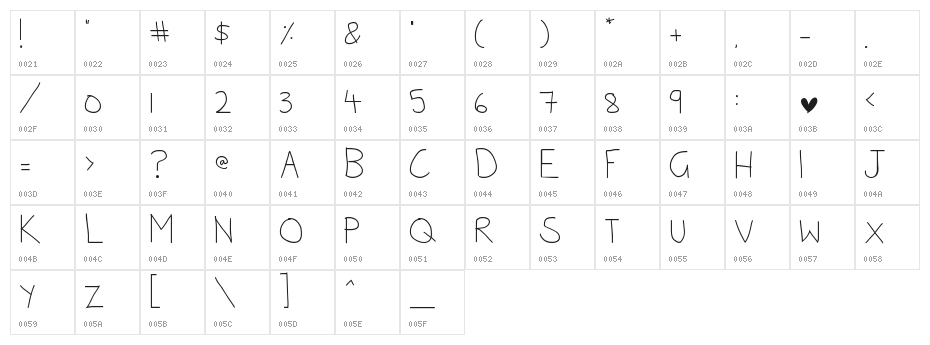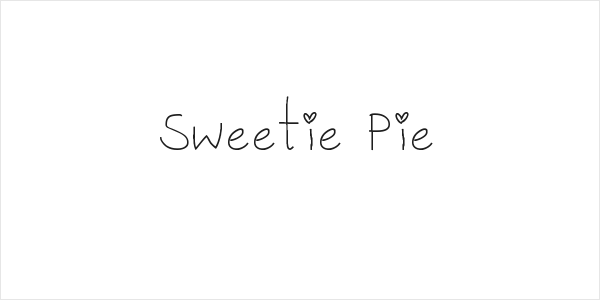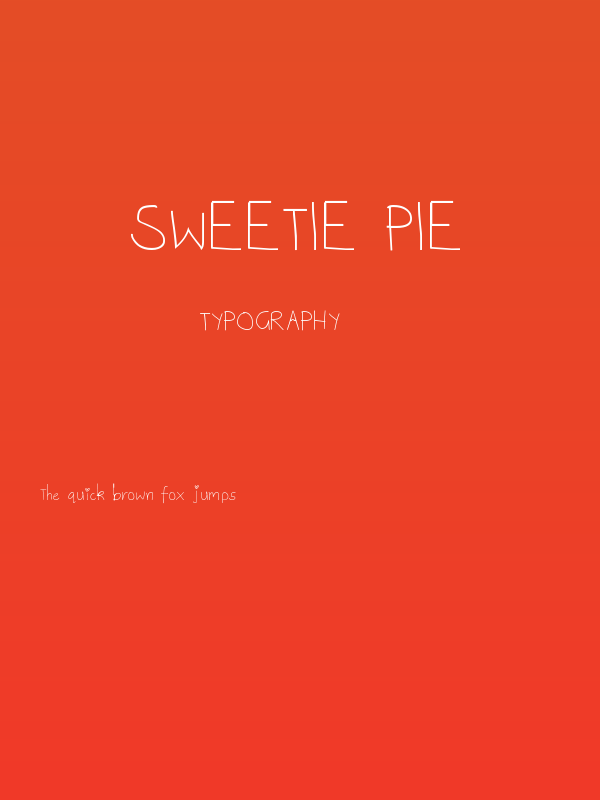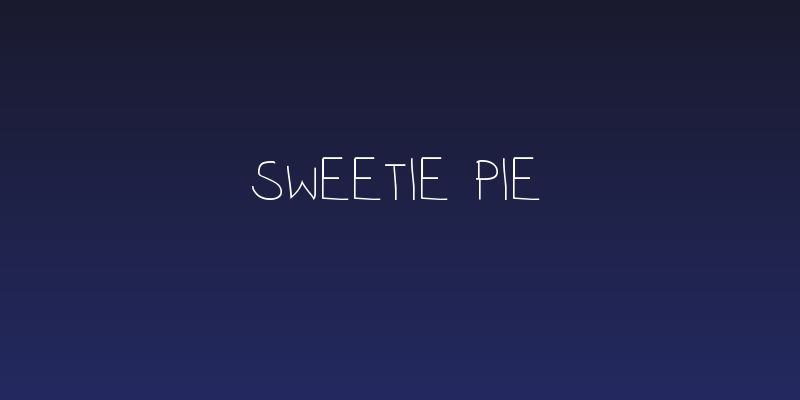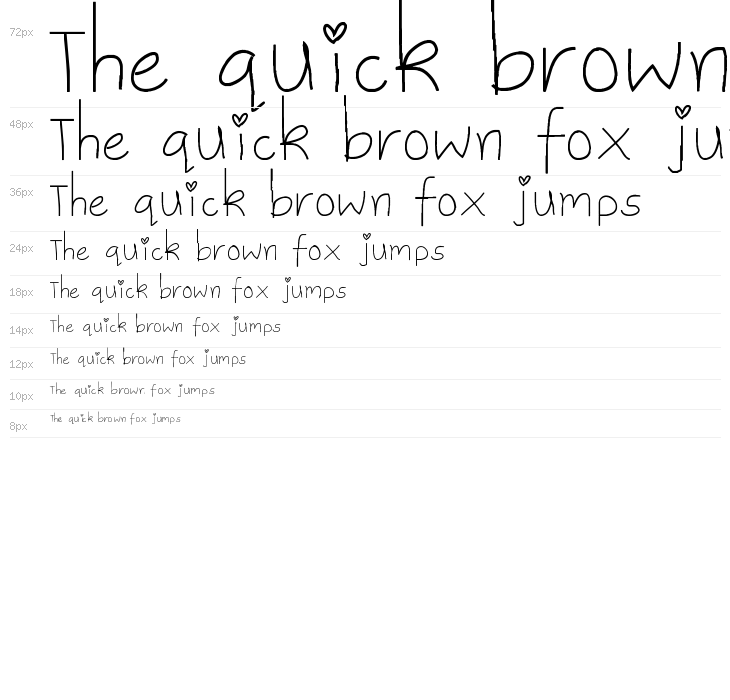
Sweetie Pie Font
Sweetie Pie Description
This playful and whimsical font features a handwritten style with a casual and friendly appearance. The letters are slightly irregular, adding a personal touch that mimics natural handwriting. Notably, the lowercase 'i' and 'j' are adorned with heart-shaped dots, enhancing its charm and uniqueness. The strokes are consistent in thickness, providing a uniform look across all characters. The numbers and special characters maintain the same playful style, making it versatile for various creative projects. Its overall design exudes a sense of fun and lightheartedness, perfect for projects that aim to convey warmth and personality.
| Use Case | Headlines, Logos, Greeting Cards |
| Proposed Projects | Ideal for greeting cards, children's books, playful branding, and social media graphics. |